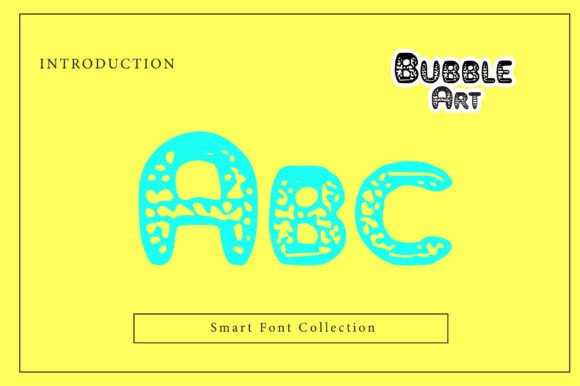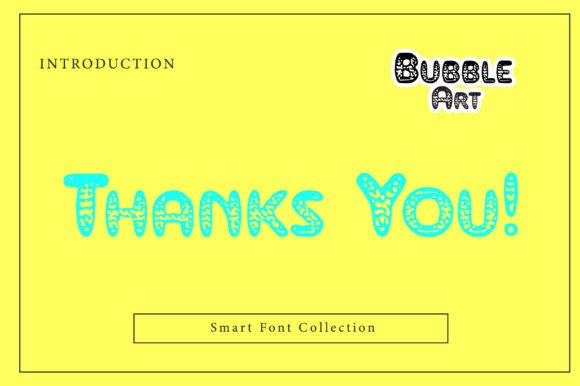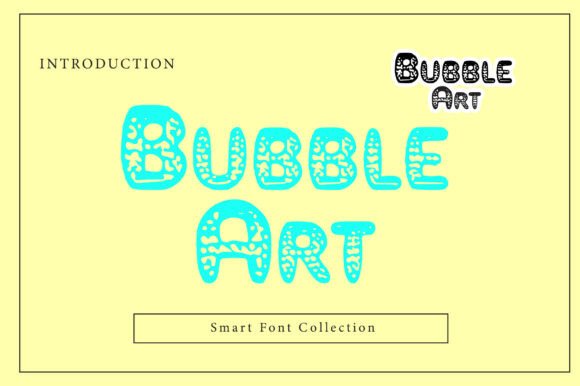
Bubble Art Font: Unleashing Explosive Texture and Street-Style Creativity
Step into the vibrant world of urban expression with the Bubble Art font, a standout display typeface from the Smart Font Collection that redefines the “bubble letter” aesthetic. This Bubble Art typeface is characterized by its bold, rounded forms and an intricate, textured inner pattern that mimics the look of splattered paint or street-art stencils.
A Bold and Eye-Catching Design
Designed for maximum visual impact, the Bubble Art font is the perfect choice for projects that need to feel high-energy, youth-oriented, and unapologetically creative. It captures the spirit of underground culture and brings it into a polished, digital format that is ready for mainstream design. The font’s bold, rounded forms are sure to grab attention, while its textured inner pattern adds a level of depth and visual interest.
The Power of Smart Font Construction
The true strength of the Bubble Art typeface lies in its unique “Smart Font” construction, allowing the textured details to shine even in complex layouts. This innovative design ensures that the font remains legible and visually appealing, even when used in a variety of contexts. Whether you’re designing a music festival poster, a streetwear brand logo, or a gaming interface, the Bubble Art font is the perfect choice.
The Bubble Art font is a premier choice for a wide range of design projects, including:
- Music festival posters: Add a bold, eye-catching touch to your festival posters with the Bubble Art font.
- Streetwear branding: Give your streetwear brand a fresh, urban look with the Bubble Art font.
- Gaming interfaces: Bring a level of energy and excitement to your gaming interfaces with the Bubble Art font.
- Any project that requires a bold, tactile presence: The Bubble Art font is perfect for any project that needs to make a statement.
Key Features of the Bubble Art Font
The Bubble Art font boasts a range of key features that make it the perfect choice for designers and crafters, including:
- Bold, rounded forms: The font’s bold, rounded forms are sure to grab attention.
- Intricate, textured inner pattern: The font’s textured inner pattern adds a level of depth and visual interest.
- Smart Font construction: The font’s innovative design ensures that the textured details shine even in complex layouts.
- High-energy, youth-oriented feel: The font is perfect for projects that need to feel high-energy, youth-oriented, and unapologetically creative.
Tips for Using the Bubble Art Font
To get the most out of the Bubble Art font, follow these tips:
- Use it sparingly: The Bubble Art font is a bold, attention-grabbing font that should be used sparingly to maximum effect.
- Experiment with different colors: The font’s textured inner pattern looks great in a variety of colors, so don’t be afraid to experiment.
- Pair it with complementary fonts: The Bubble Art font pairs well with a range of complementary fonts, so don’t be afraid to get creative.
The Bubble Art font is a standout display typeface that is sure to bring a level of energy and excitement to your design projects. With its bold, rounded forms and intricate, textured inner pattern, it’s the perfect choice for designers and crafters who want to make a statement. Whether you’re designing a music festival poster, a streetwear brand logo, or a gaming interface, the Bubble Art font is the perfect choice.